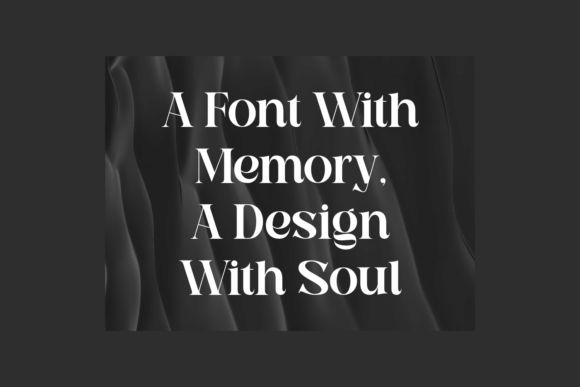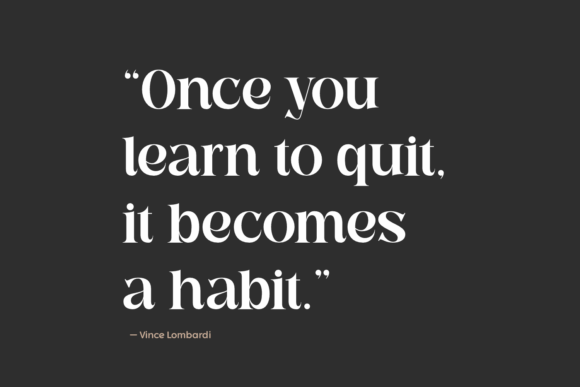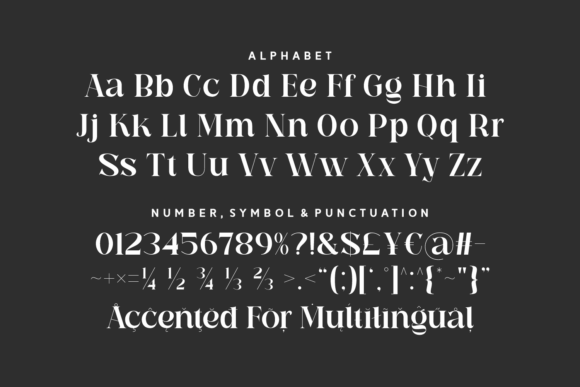
Introduction to Graley Font
Graley is a modern serif font that effortlessly blends bold sophistication with artistic flair.
Its unique ligature-style characters and expressive strokes make it a perfect choice for high-end branding, editorial design, logos, and fashion-inspired graphics Graley stands out with its sculptural balance between soft curves and sharp serifs, offering a fresh yet timeless look.
Key Features of Graley Font